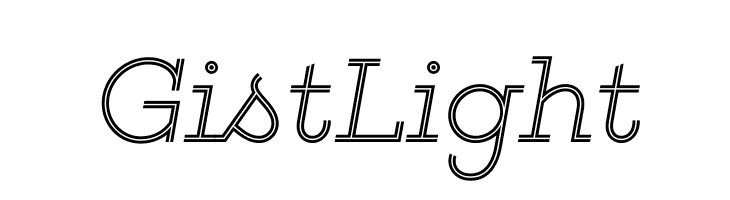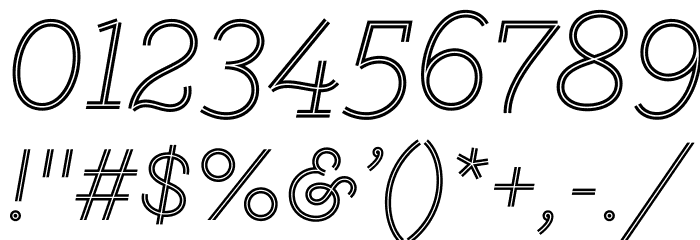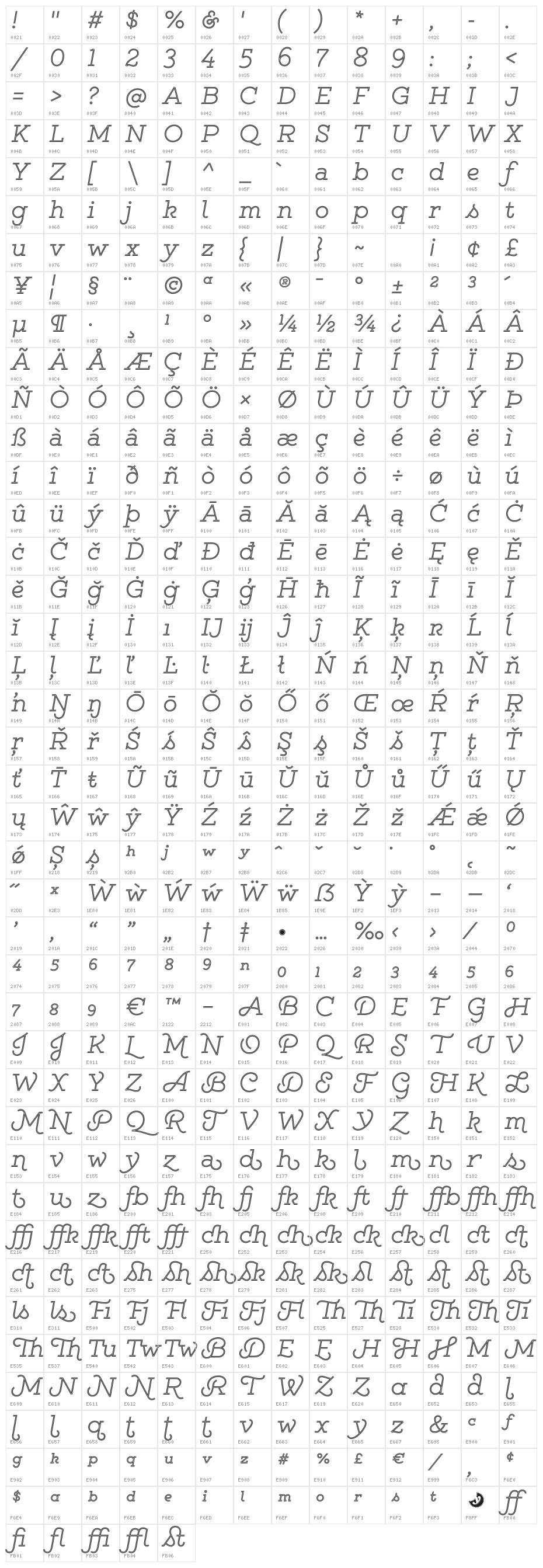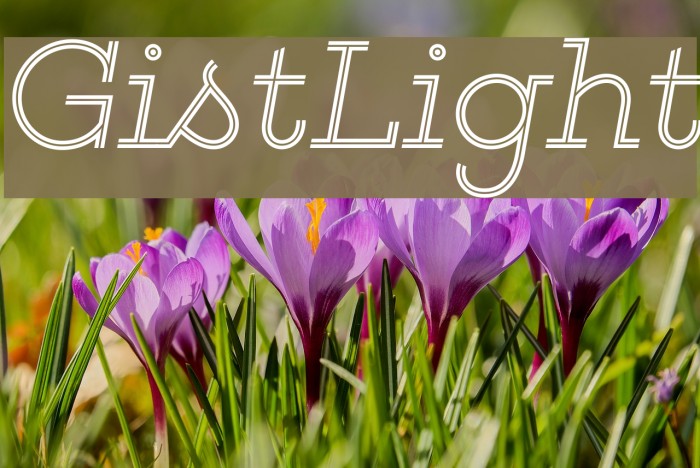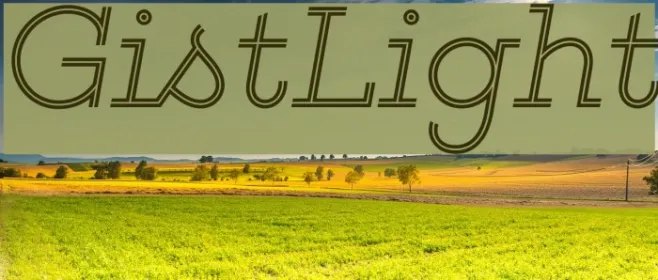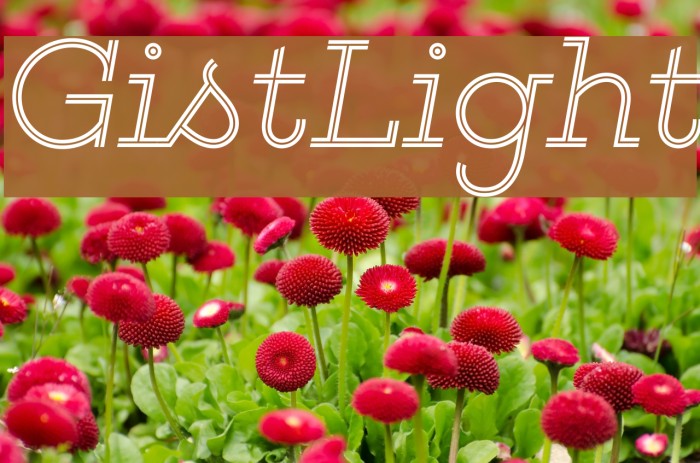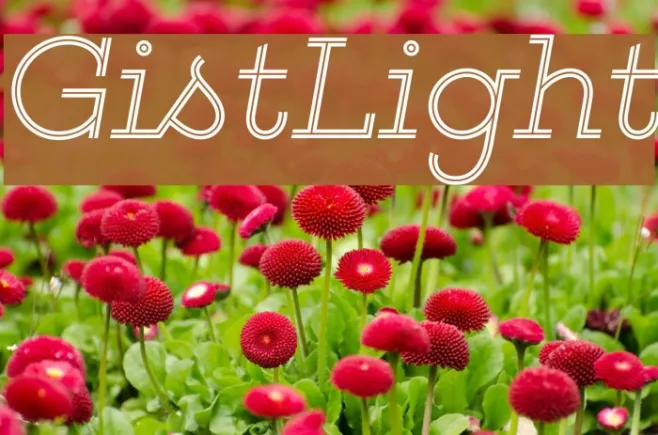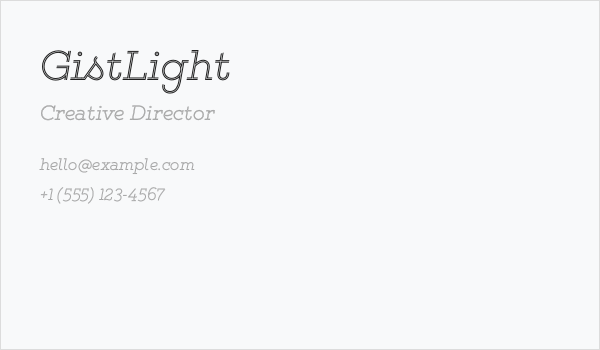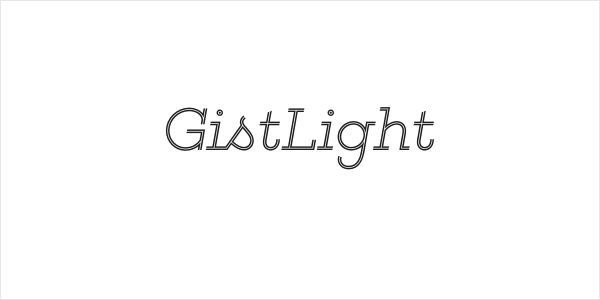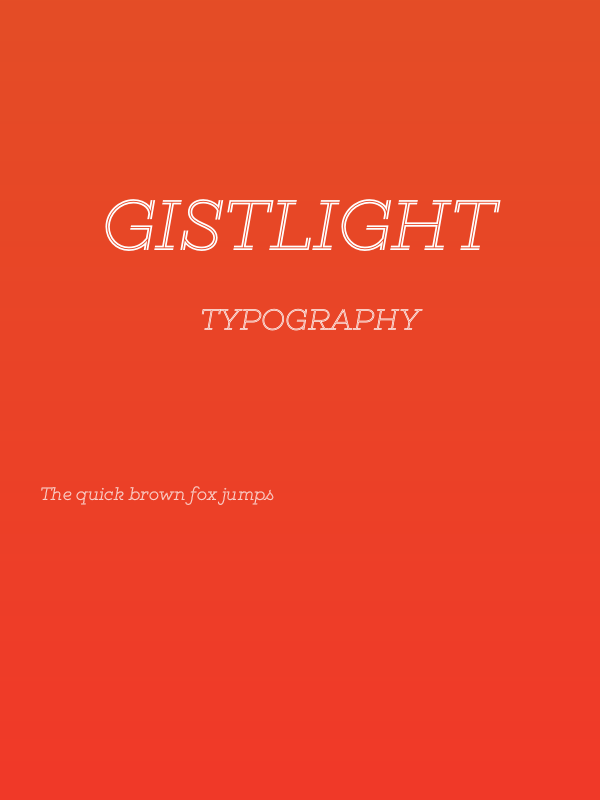
GistLight Font
GistLight Description
This font features a modern and elegant design with a distinct outline style. The characters are crafted with a consistent stroke width, giving them a clean and sophisticated appearance. The uppercase letters are slightly taller than the lowercase, providing a balanced and harmonious look. The numerals and special characters maintain the same stylistic approach, ensuring uniformity across all elements. The font's open and airy design makes it suitable for a variety of applications, offering a unique blend of style and readability.
| Proposed Projects | Ideal for branding, headlines, posters, and editorial design where a modern and stylish look is desired. |